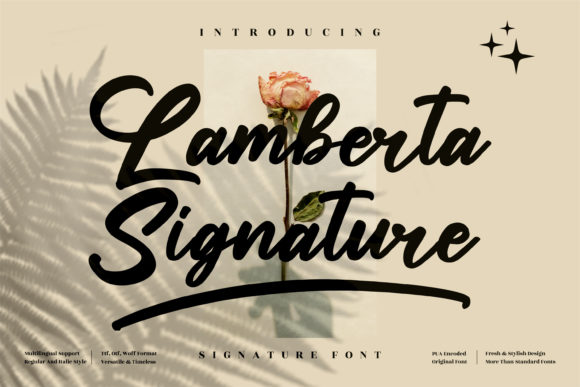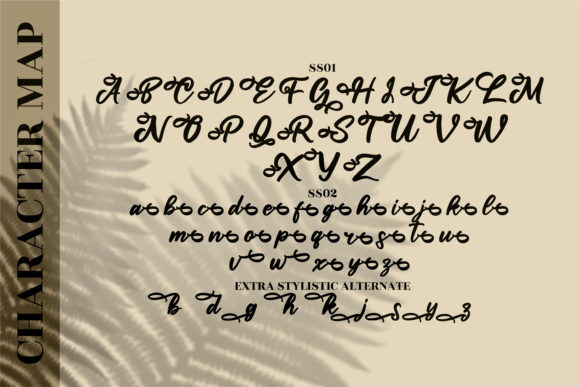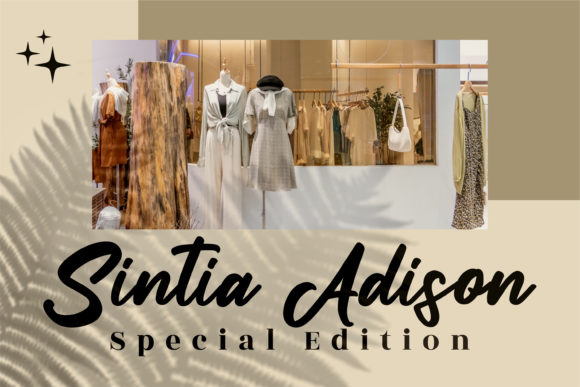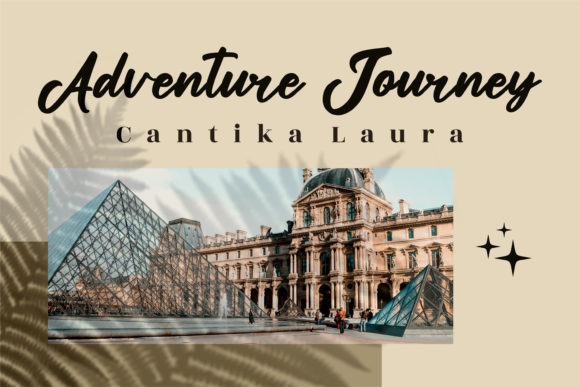
About Lamberta Signature Font
“Lamberta Signature” is a delightful and delicate script font that captures a sense of sweetness and elegance. With its thin and flowing letterforms, this font adds a touch of sophistication and a personalized style to any design project.
One of the standout features of “Lamberta Signature” is its versatility. It effortlessly enhances a wide range of designs, making it suitable for various purposes. Whether you’re working on wedding invitations, thank you cards, quotes, greeting cards, logos, or business cards, this font lends a romantic and charming touch.
The inclusion of PUA (Private Use Area) encoding in “Lamberta Signature” ensures easy access to all of the glyphs and swashes. This feature allows you to explore and incorporate a variety of decorative elements and unique characters, adding further customization and creative possibilities to your designs.
The thin and delicate letterforms of “Lamberta Signature” contribute to its overall grace and beauty. The font flows smoothly, creating an effortless and elegant look that is both pleasing to the eye and visually captivating. It adds a sense of refinement and sophistication, elevating your designs to a higher level.
With its personalized style, “Lamberta Signature” is particularly well-suited for projects that require a touch of individuality and uniqueness. It shines on wedding invitations, where it can convey the romance and intimacy of the occasion. It also adds a special touch to thank you cards and greeting cards, allowing you to express your sentiments with a touch of elegance.
Furthermore, “Lamberta Signature” can be utilized in logo design and branding, bringing a sense of refinement and sophistication to your brand identity. Its delicate and thin letterforms make it a suitable choice for businesses and brands that seek to convey elegance and personalized attention.
In summary, “Lamberta Signature” is a sweet and delicate script font that adds a touch of elegance and personalized style to a wide range of design projects. With its thin and flowing letterforms, PUA encoding, and graceful appearance, it is a versatile font that can enhance wedding invitations, thank you cards, logos, and other designs with a romantic and charming touch.